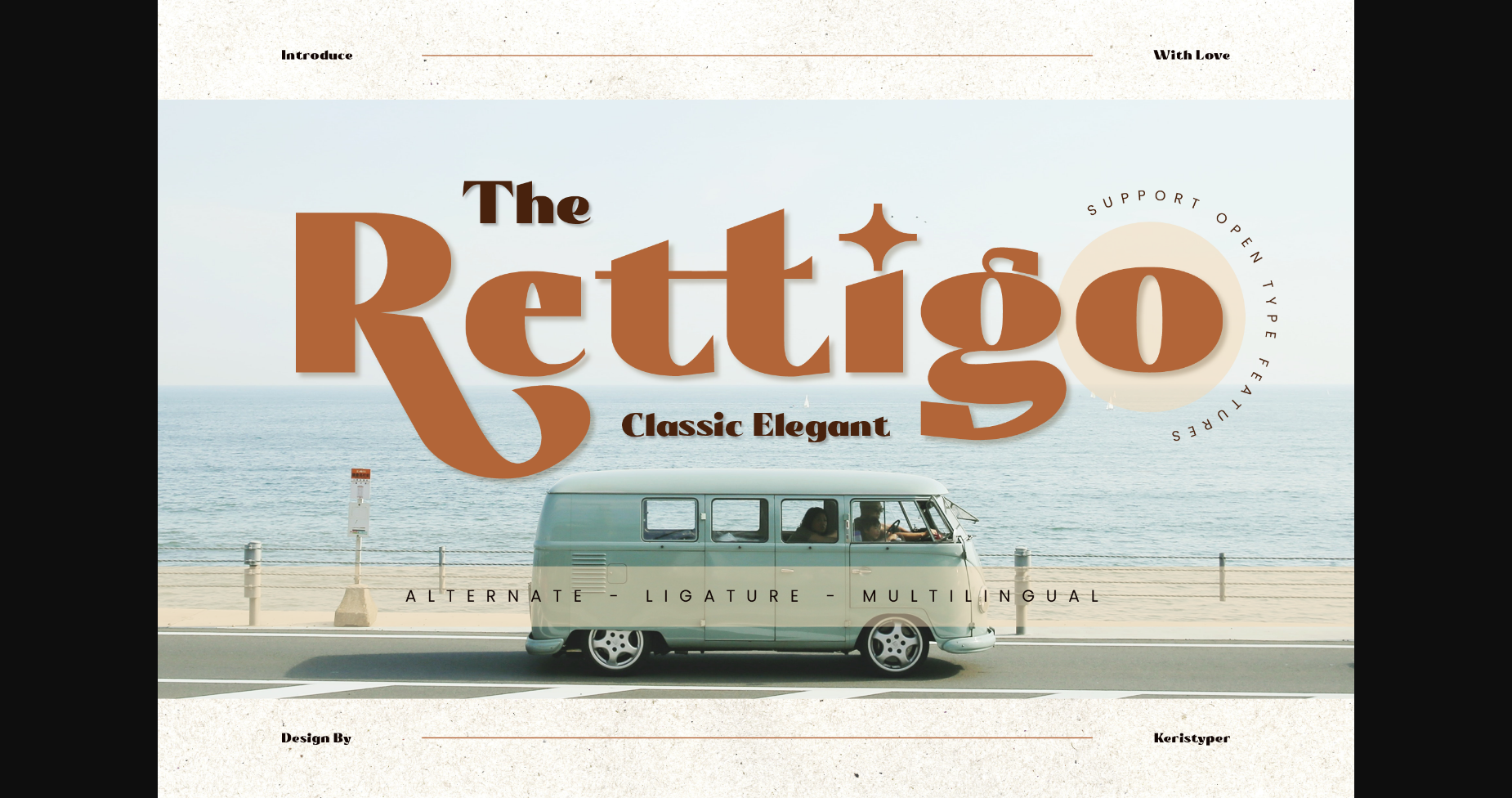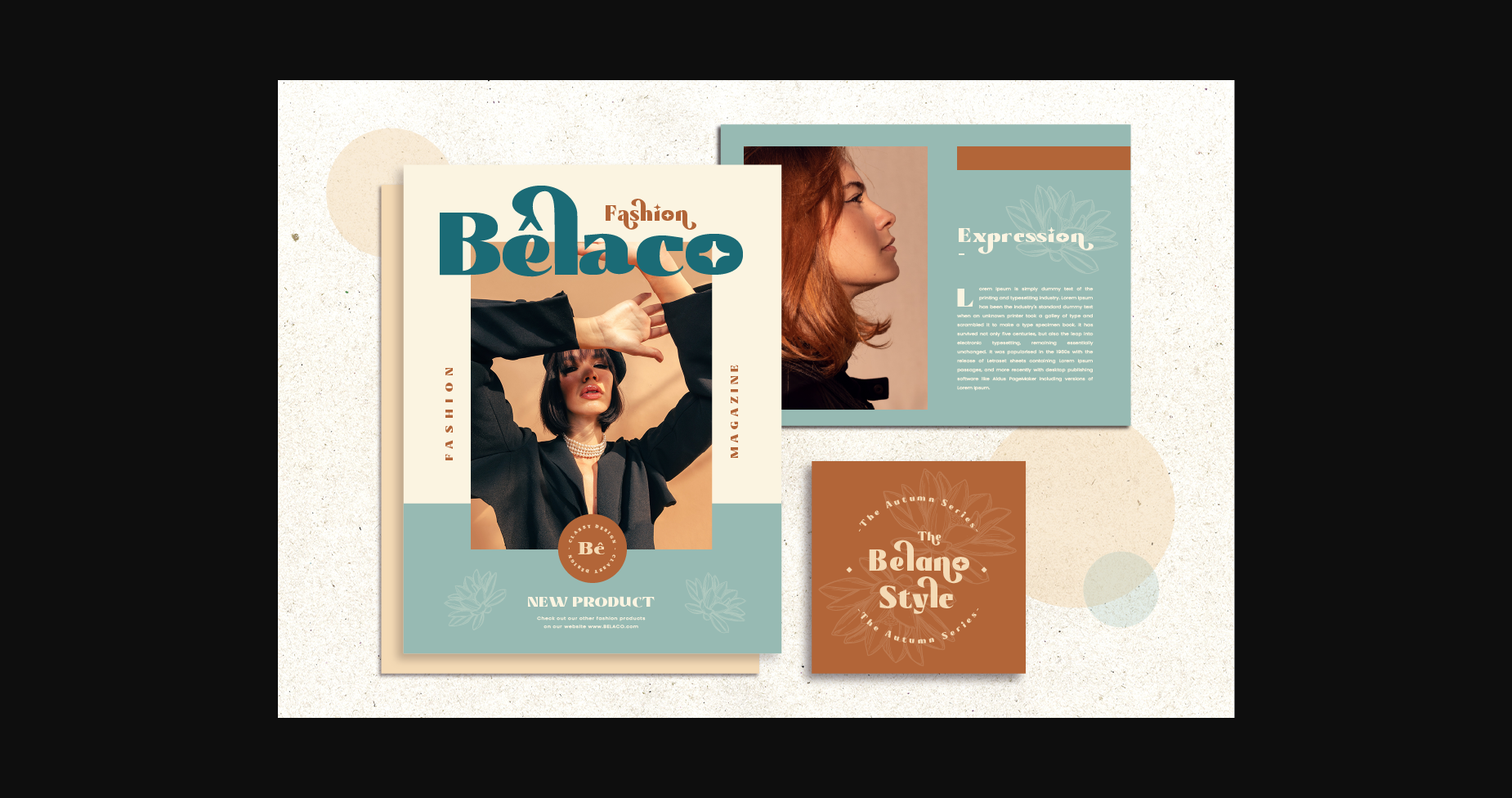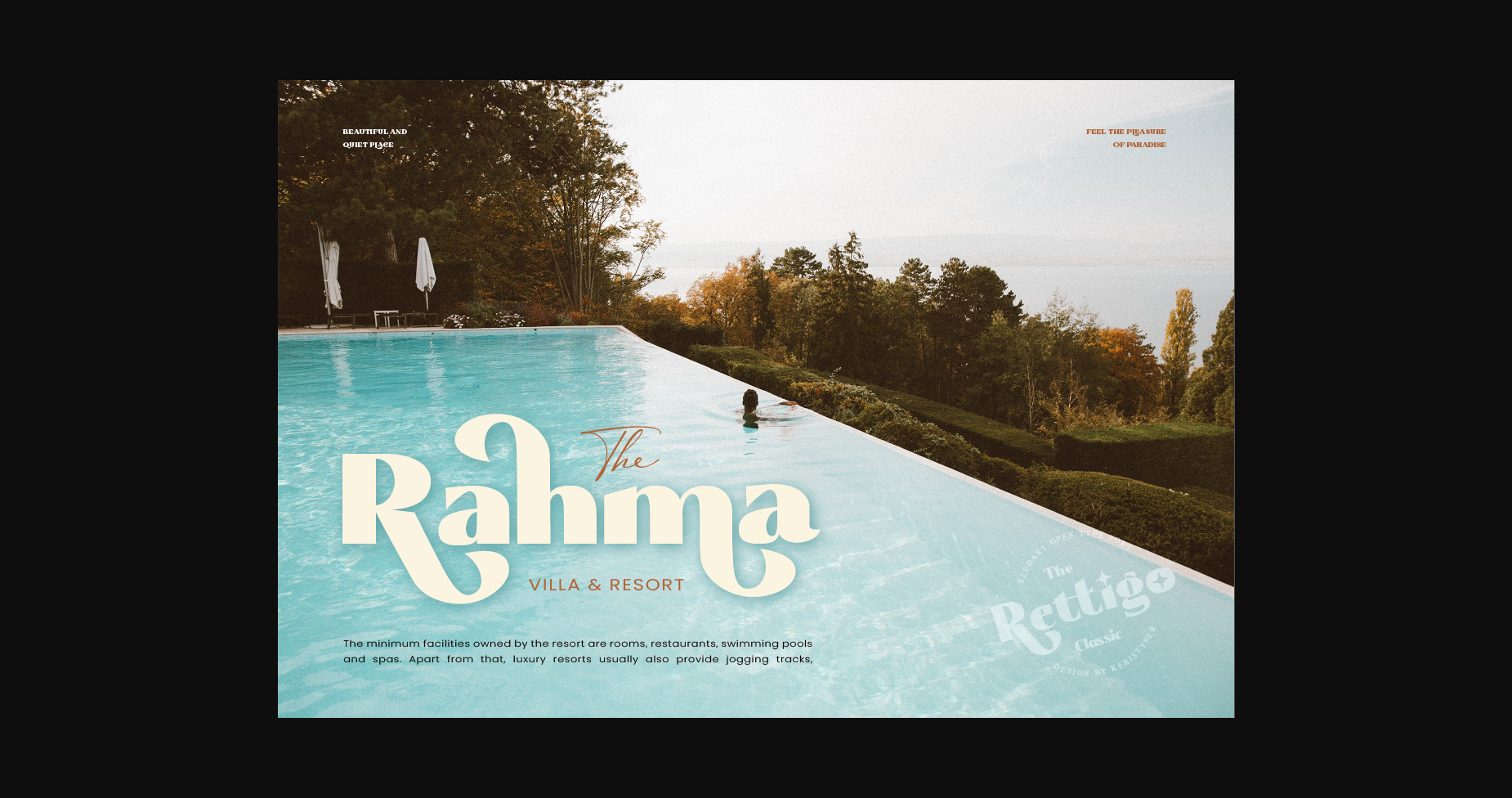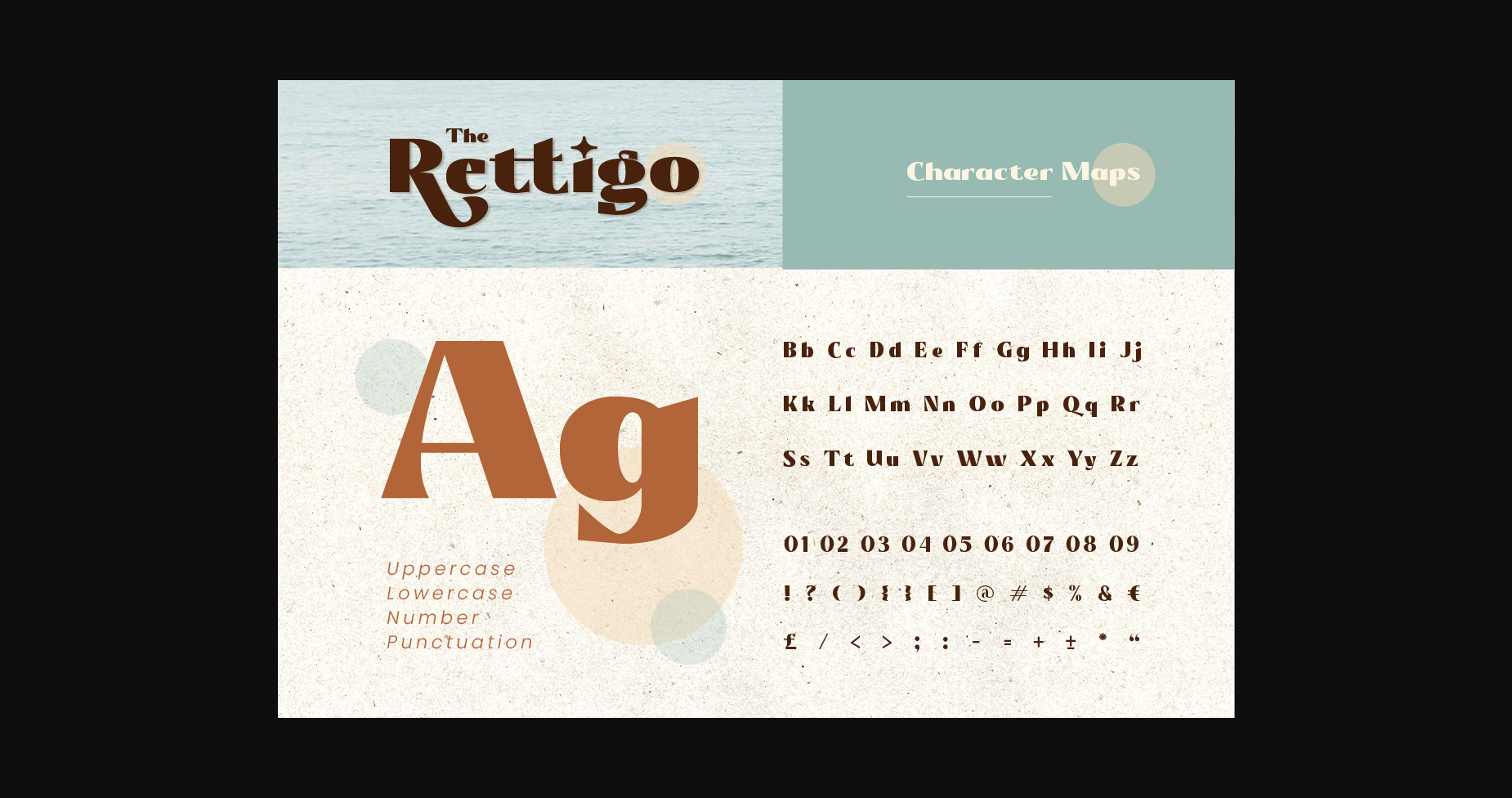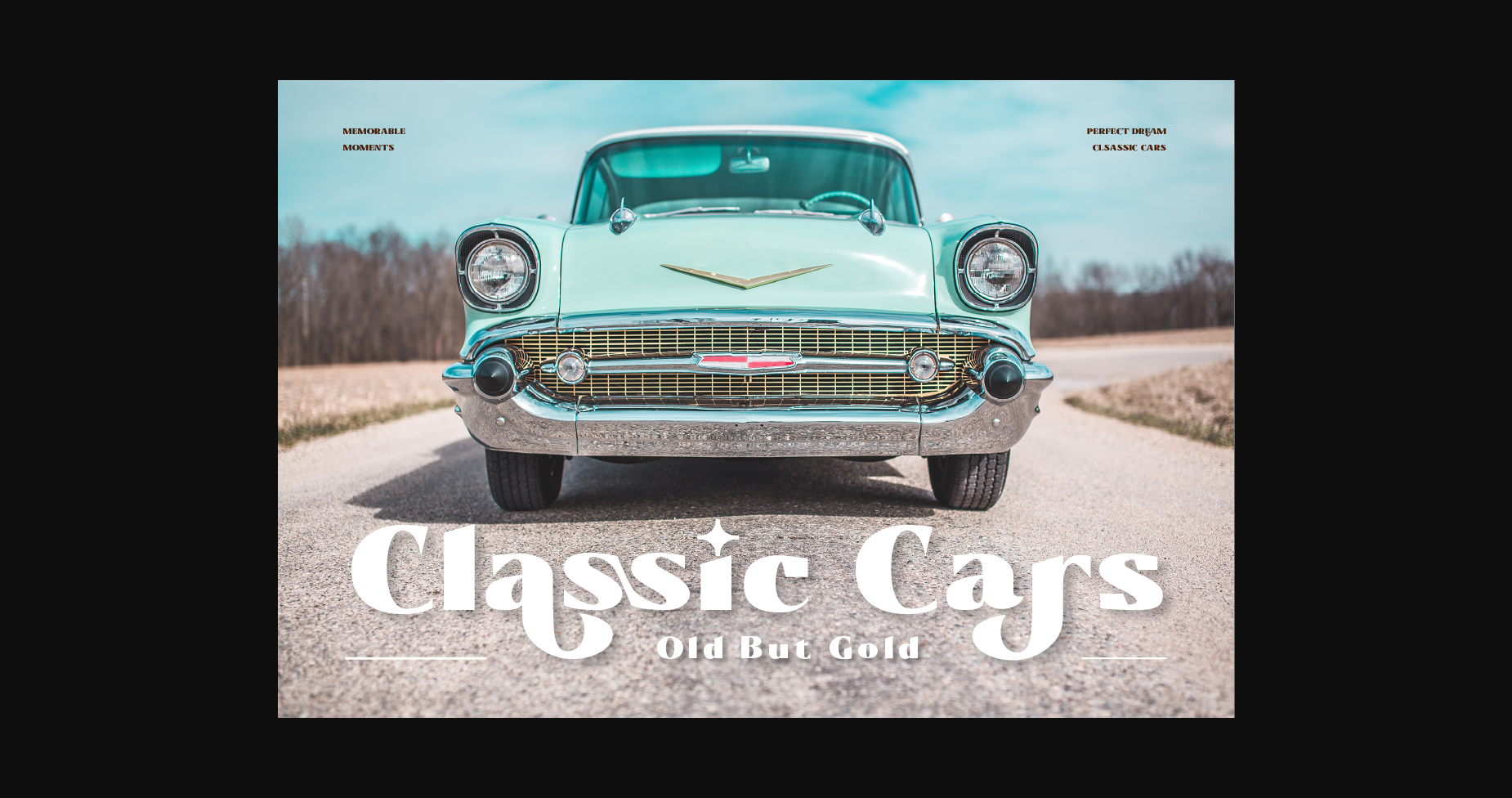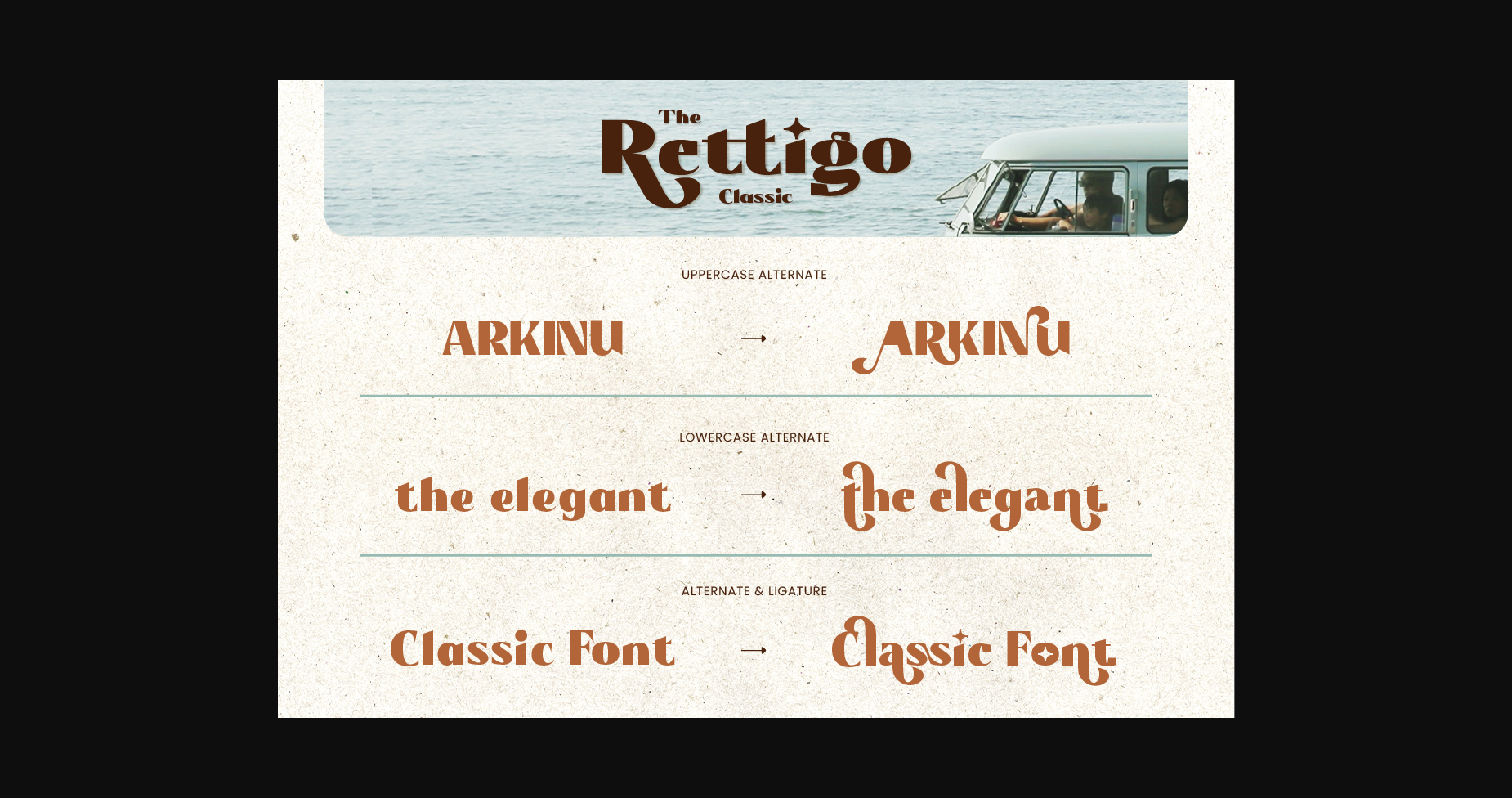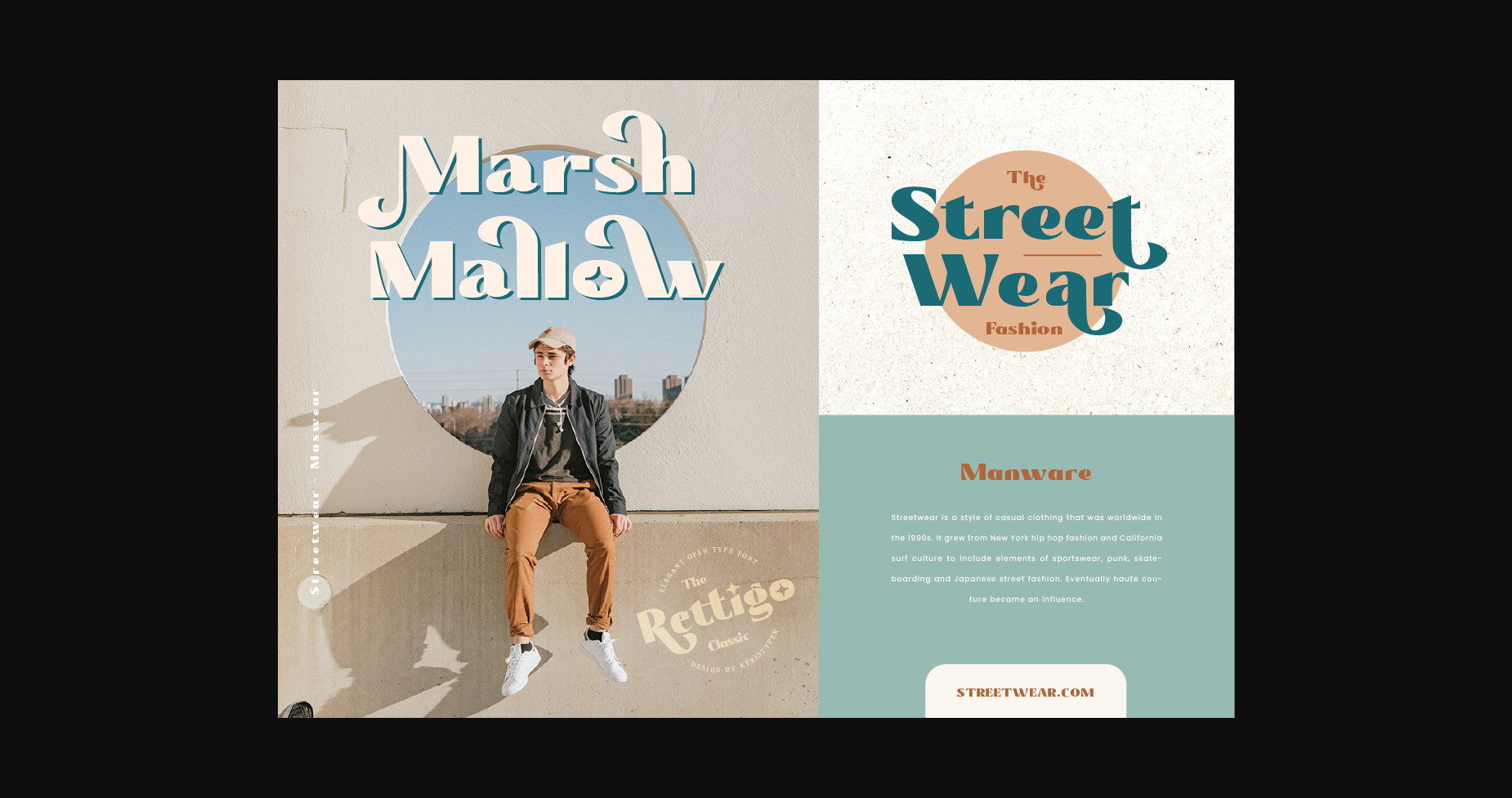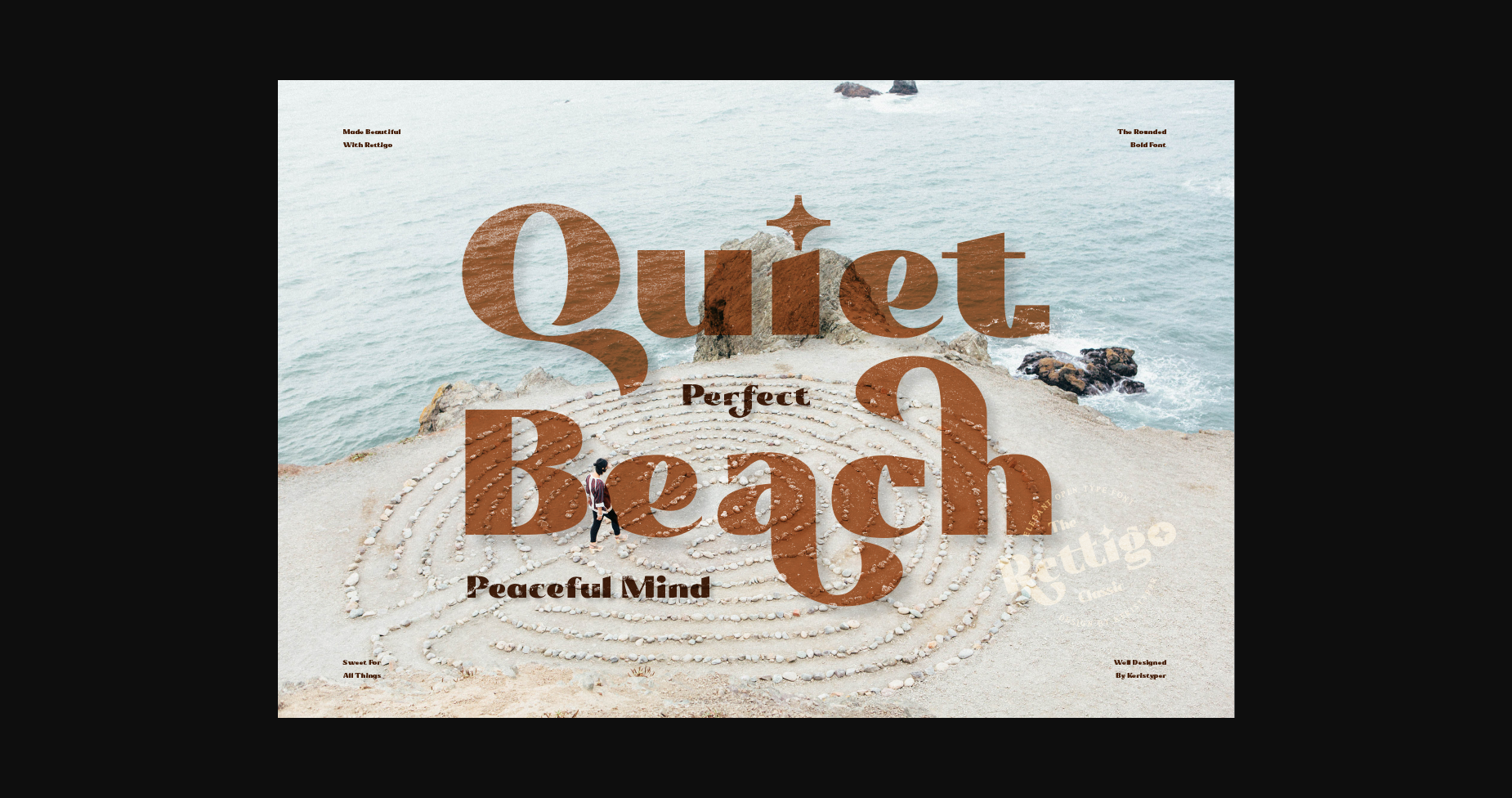
Rettigo Font
About Rettigo Font
Rettigo is a classic and elegant serif font that adds a touch of sophistication to any design. Its timeless style is perfect for creating elegant and refined designs. With its clean lines and stylish curves, Rettigo is sure to make your designs stand out. Use it for anything from logos and branding to editorial design and invitations. Get Rettigo today and elevate your design game!